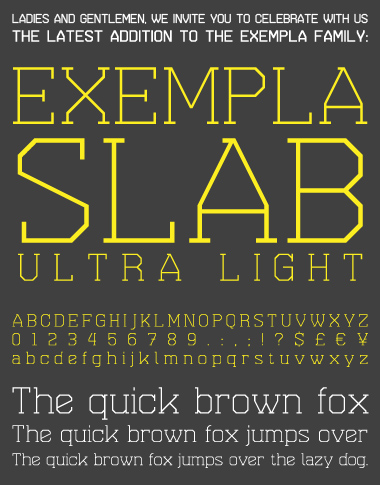
• Meet the Exempla family's youngest daughter: Exempla Slab Ultra Light. Nice for clean geometric designs, and as always with complete Basic Latin, More Latin and Extended Latin A sets. (Though I must admit I've started to regret the huge amount of characters I have to do for each new addition. I'm sure the family would be growing quite a bit faster with a reduced character set. Well... sometimes perfectionism comes at high a price.)
Hope you like it, feedback is as always very welcome!
Excellent work shasta.
It may be the new addition, but this baby sure punches above its weight :)
Exemplary work, shasta. May the Exempla family grow and thrive.
A top addition to the family.
Very usable and I'd pay good money for it.
I'd just close up by 1 square the advanced spacing on the L. plus do you think the '&' is OK?
Thanks everyone, glad you like it... I actually think this is the last Exempla offspring for quite some time. Always takes a lot of patience to go through the 300something characters. Let's see when my Zen is back in shape again for such repetitive work. :P
@djnippa: Thanks for the hint, you're right as always on spacing issues... I've corrected the L's. As for the & I know it's not the most stunning solution, but I don't seem able to bring up much more creative ones. Any suggestions? How about this one?